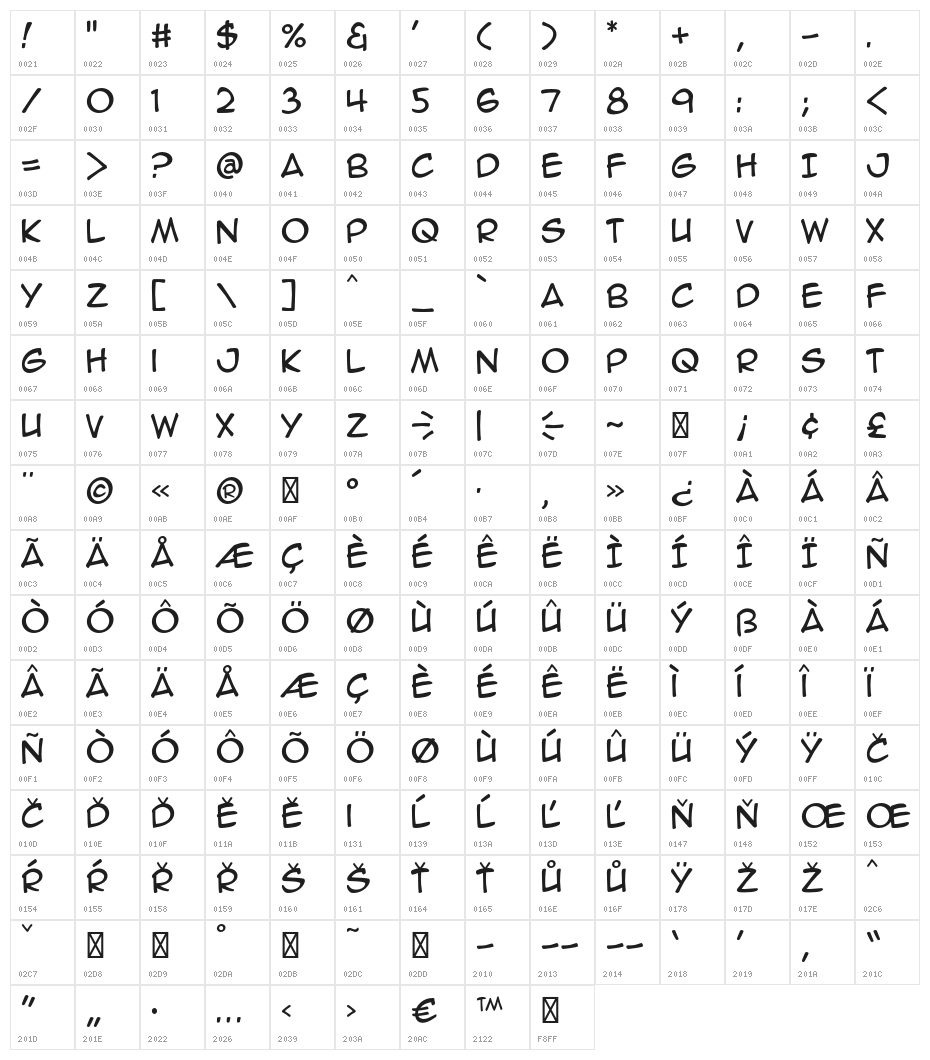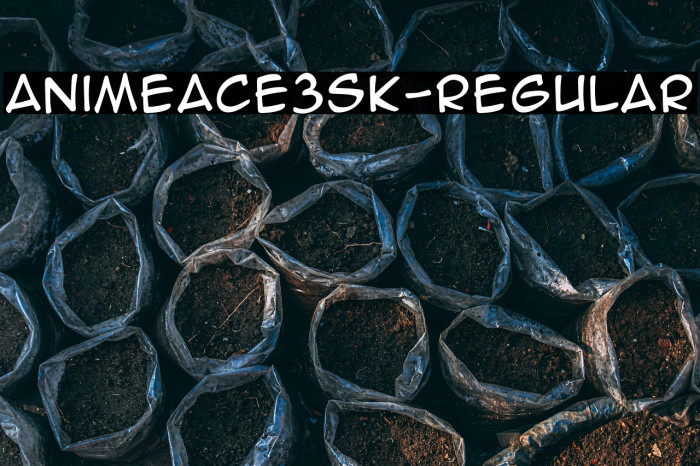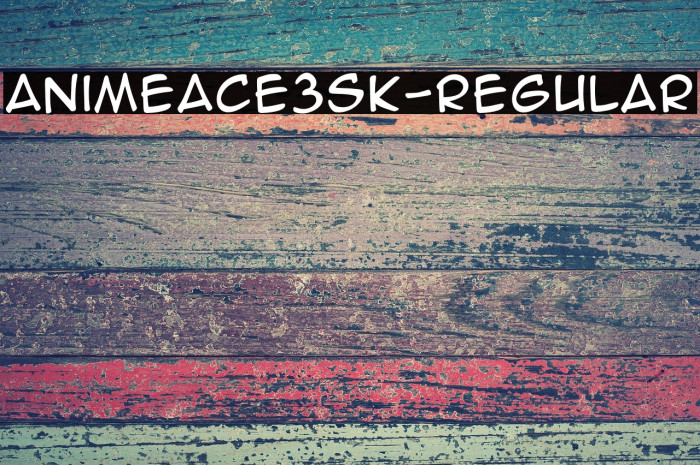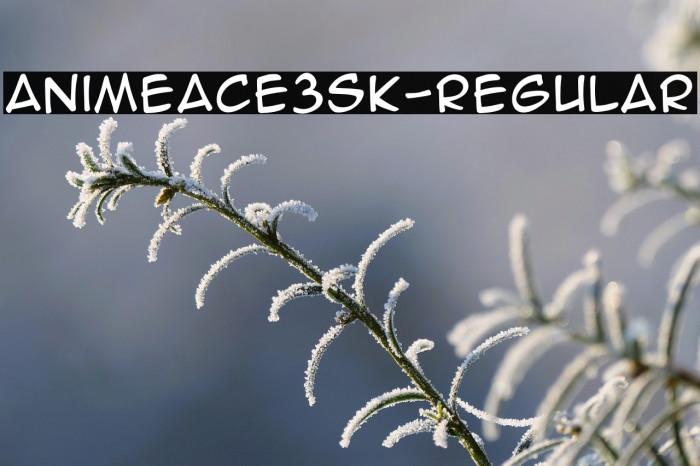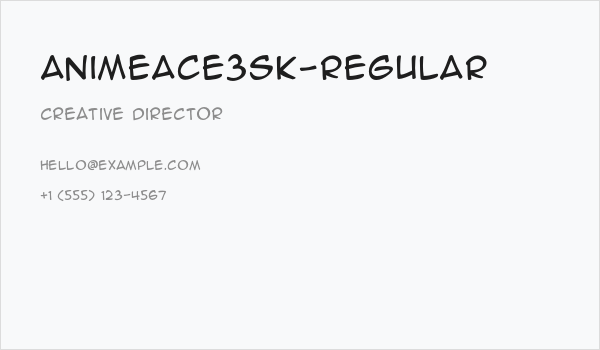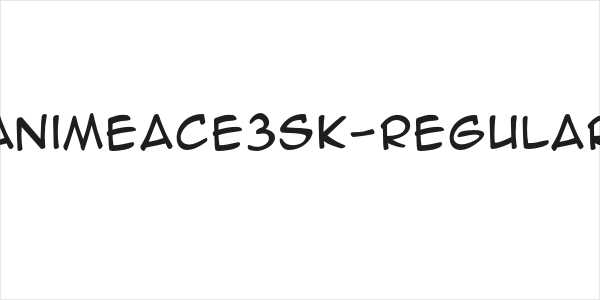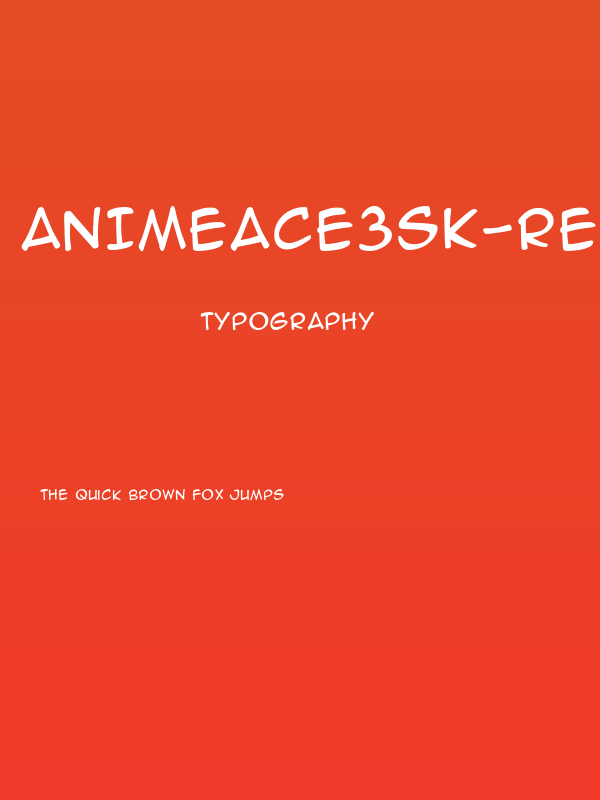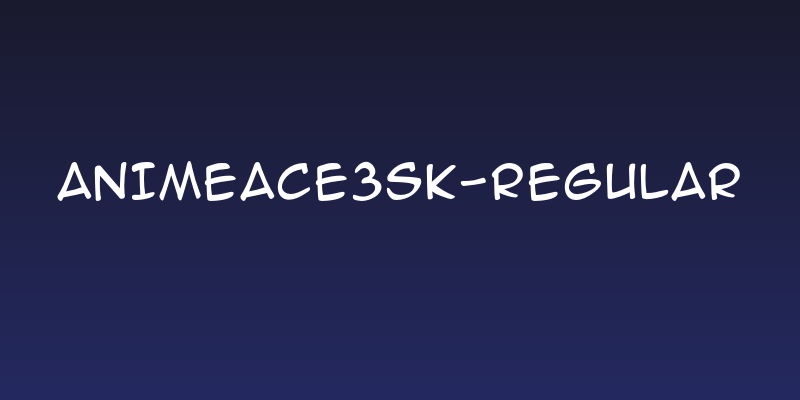
AnimeAce3SK-Regular Font
AnimeAce3SK-Regular Description
This font features a playful and informal style, characterized by its rounded and slightly irregular letterforms that give it a handwritten appearance. The uppercase and lowercase letters maintain a consistent flow, with smooth curves and a casual aesthetic. The numbers and special characters follow the same design principles, ensuring a cohesive look across all characters. The font's overall appearance is friendly and approachable, making it suitable for projects that require a touch of personality and warmth. Its legibility is maintained even at smaller sizes, thanks to the clear distinction between each character.
| Proposed Projects | Ideal for comic books, children's books, casual branding, and playful graphic designs. |